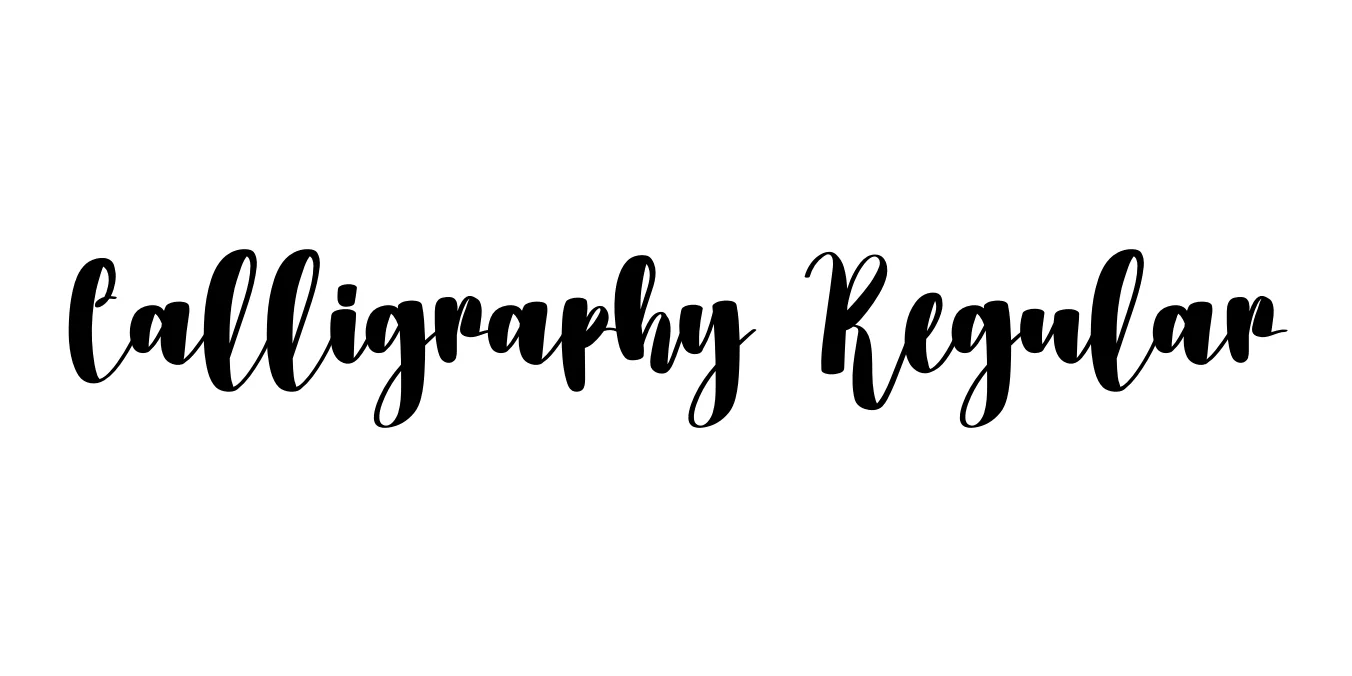
Calligraphy Regular
Designed by Dieter Steffmann
| Font Name | Calligraphy |
| Designer | Dieter Steffmann |
| Similar Fonts | Lucida Calligraphy, Zapf Chancery, Monotype Corsiva |
Calligraphy Regular is a sophisticated script typeface that draws its inspiration from the traditional art of manual penmanship and historical manuscript illumination. Designed to emulate the natural flow of a broad-nibbed pen, the font features elegant flourishes, varying stroke thicknesses, and a rhythmic cadence that evokes a sense of timeless craftsmanship. It serves as a digital tribute to the scribal traditions that predated the printing press, bringing a human touch to modern digital layouts.
Over the years, Calligraphy Regular has become a favorite among designers for projects that require an atmosphere of prestige and formality. Its balanced proportions and refined terminals make it highly legible despite its decorative nature. Whether used for ceremonial purposes or high-end branding, this typeface remains a versatile tool for conveying grace, heritage, and artistic flair in a wide variety of creative contexts.
Calligraphy Regular Best Uses
Perfect for creating elegant invitations, save-the-date cards, and seating charts.
Ideal for luxury boutique logos, winery labels, and high-end fashion identity.
Adds a touch of authority and tradition to diplomas, awards, and official documents.
Well-suited for drop caps or decorative headlines in lifestyle and history magazines.